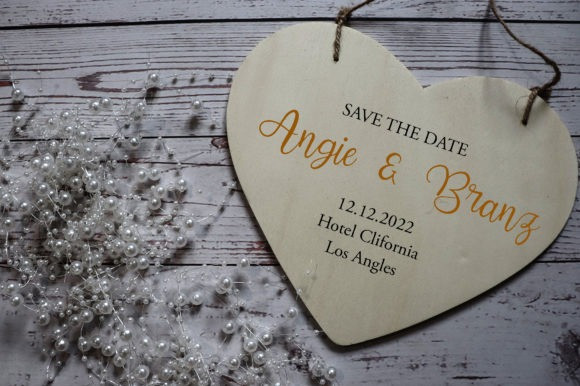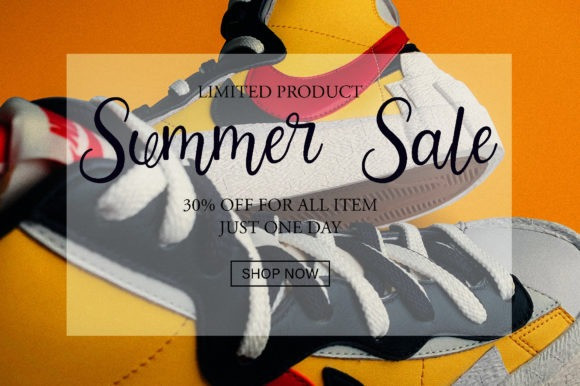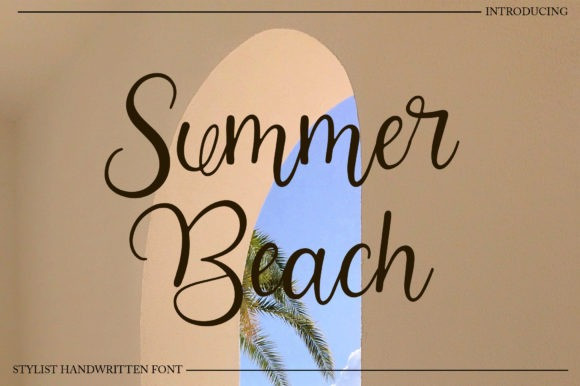
Beratone Emadre Script Font
Beratone Emadre is a flowing, relaxed and brushed script font. It has a casual, yet elegant touch. It can be used for various purposes such as logos, wedding invitations, headings, t-shirts, letterhead, signage, labels, news, posters, badges and so much more.